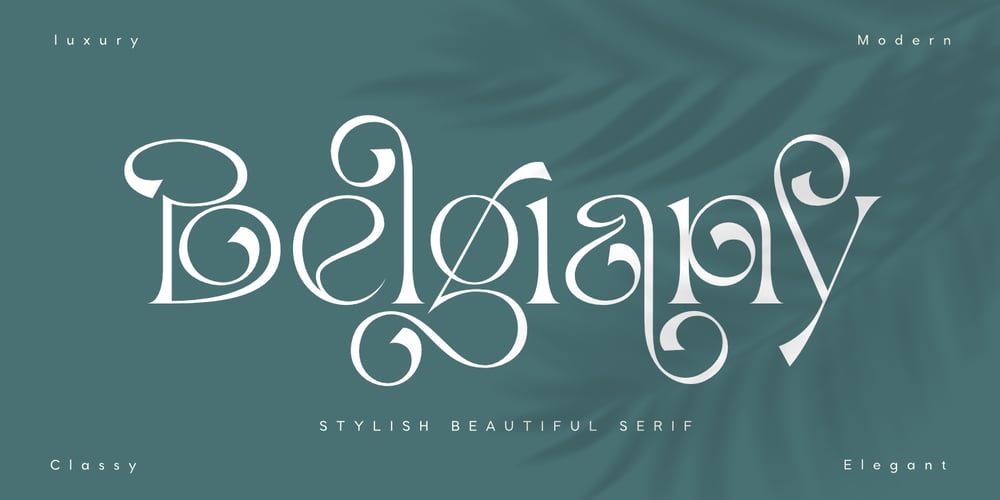
Belgiany Font Family was designed by Saiful Anwar and published by Sealoung. Belgiany contains 1 styles and family package options. Belgian is a beautifully stylish modern serif font.A new beautiful serif that we created specifically for your logo and branding needs, with an extra unique shape that will add value to your brand. It’s great to take advantage of designers or product owners who need a solution to make their designs look more beautiful and modern. And especially for Belgian fonts, We prepare any alternative characters to help you create unlimited variations for your creative needs especially for logo types or wordmarks.